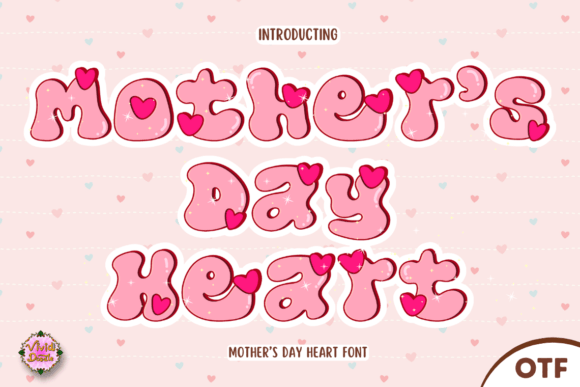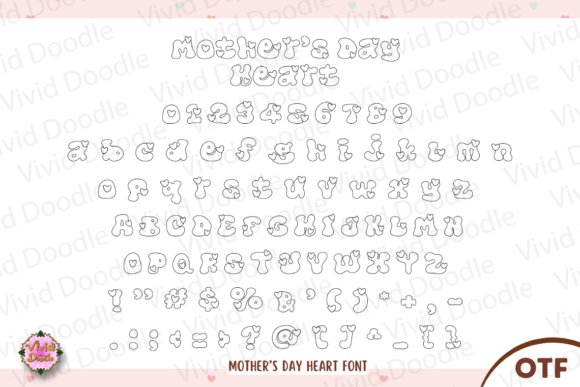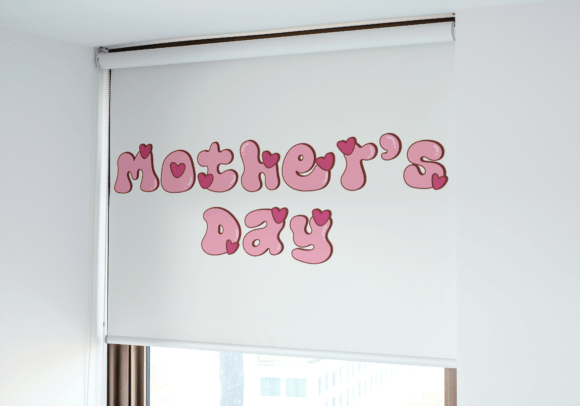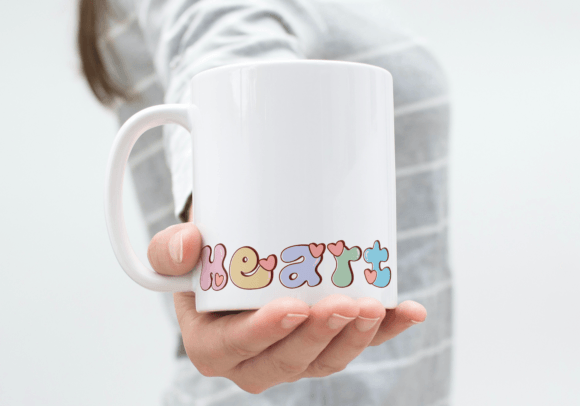
Mother’s Day Heart Font
Introducing Mother’s Day Heart Font—a handwritten typeface that beautifully celebrates the love and warmth of motherhood. Perfect for expressing heartfelt messages like “Happy Mother’s Day” and “Love Mom,” this font adds a personal and emotional touch to your designs. Whether used for titles, greeting cards, lettering, banners, posters, invitations, headers, or any other design, Mother’s Day Heart Font brings a sense of love and joy to your projects. Elevate your designs with the tender allure of this font, turning every piece into a visually engaging and emotionally resonant expression.